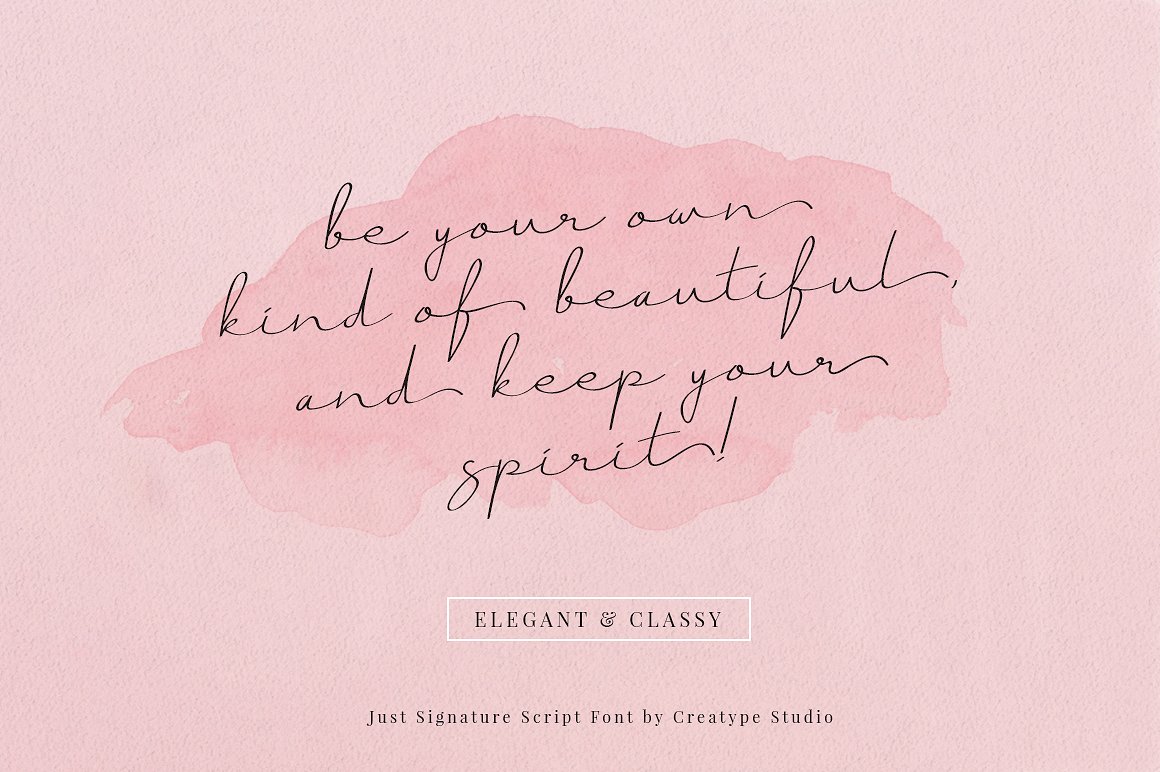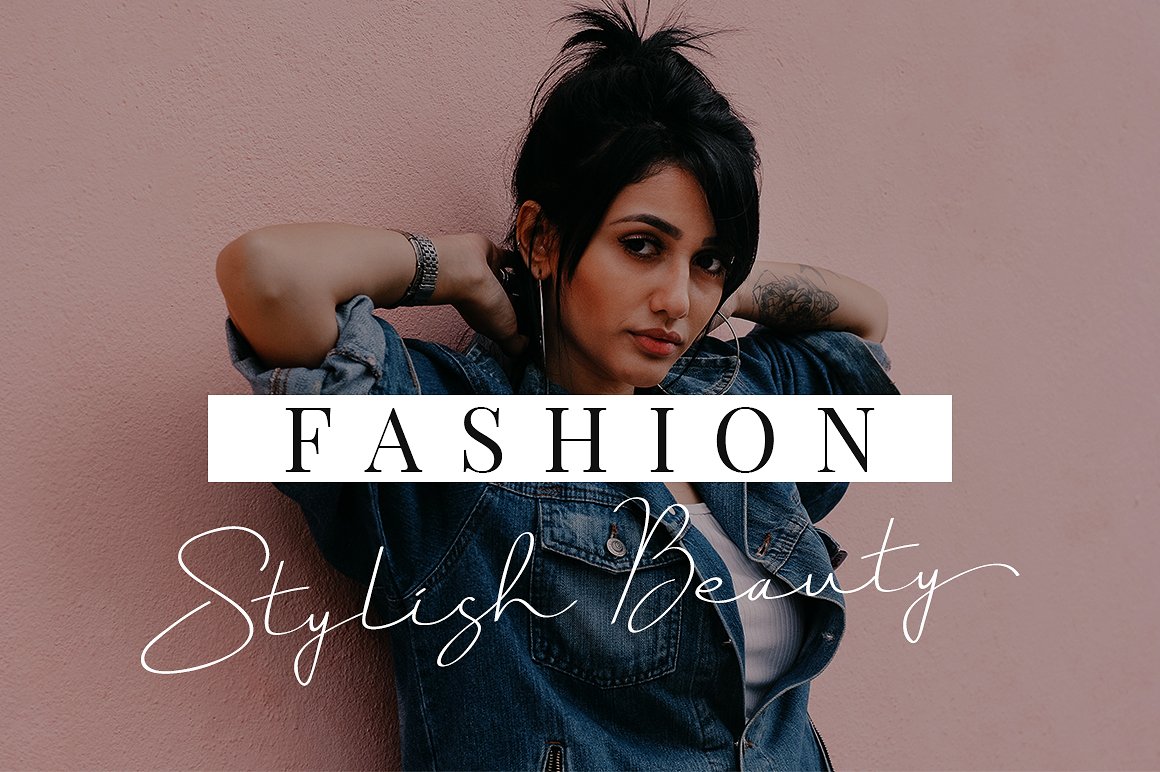
Just Signature Font
Just Signature Script Font
A beautiful handwritten font by Creatype Studio Co.. Introducing Just Font. A new modern & fresh script with a stylish handwritten and script style make this font looks natural, classy, natural and perfect for any awesome projects that need handwriting taste. Just Signature font is perfect for many different project such as logos & branding, invitation, stationery, wedding designs, social media posts, advertisements, product packaging, product designs, label, photography, watermark, special events or anything.